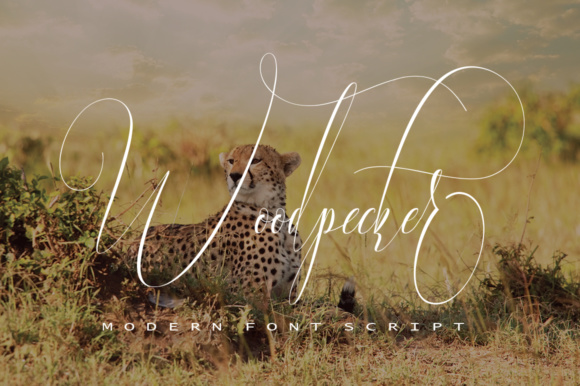
Fall in love with Woodpecker, a tantalizing dance of elegance and charm! This remarkable script font exudes an air of sophistication that will transform your designs into masterpieces.
Step into a realm of unparalleled beauty as Woodpecker's graceful strokes caress your creations, evoking emotions that resonate deep within. Each character, meticulously crafted from the rhythm of handwriting, whispers a story that will captivate your audience.
Indulge in Woodpecker's versatility, a font that seamlessly adorns any design - from delicate invitations to captivating logos. Its alluring thinness adds a touch of ethereal charm, while its distinct character speaks volumes, creating a lasting impression.
Woodpecker is more than just a font; it's an invitation to ignite your creativity and capture the essence of elegance. Whether you seek to pen heartfelt messages, design alluring posters, or create enchanting branding, this font will be your faithful companion.